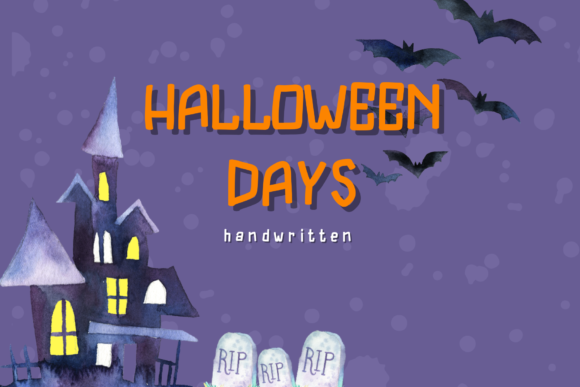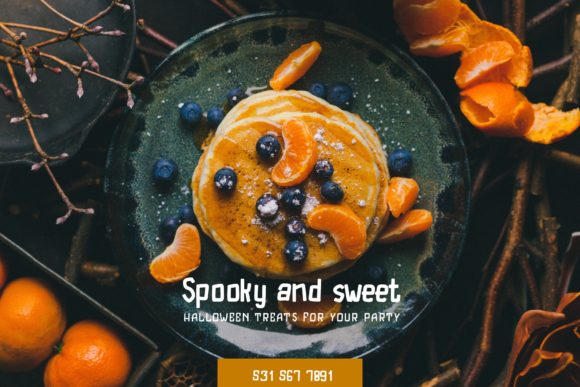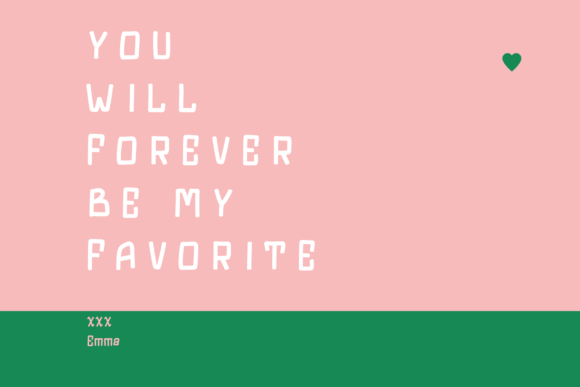
About Halloween Days Font
Halloween Days is a quirky handwritten font. Its natural and unique style makes it incredibly fitting to a large pool of designs. The only limit is your imagination!